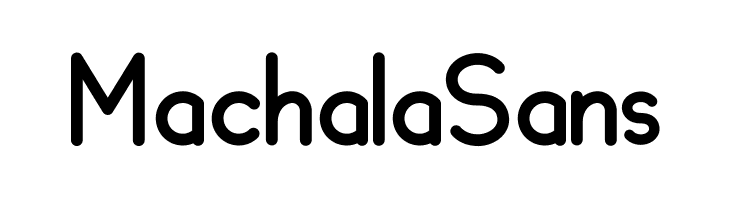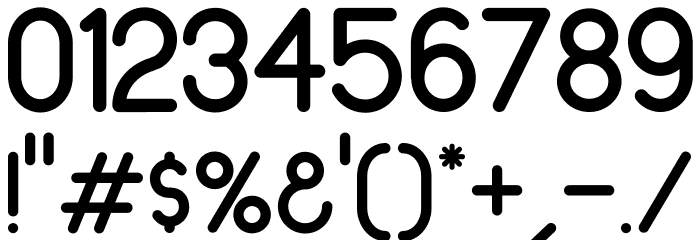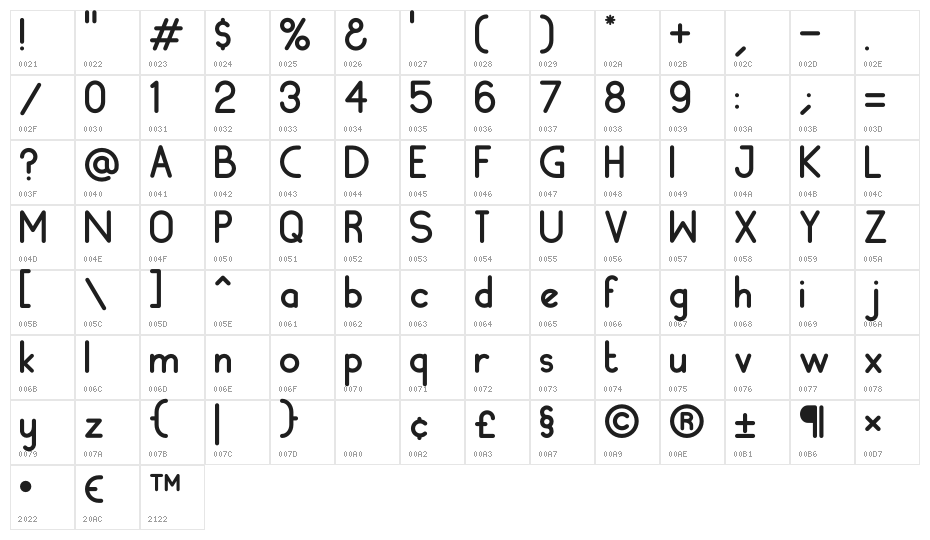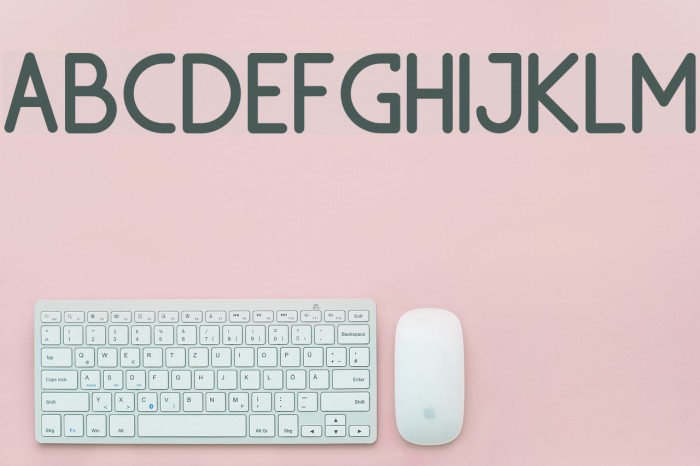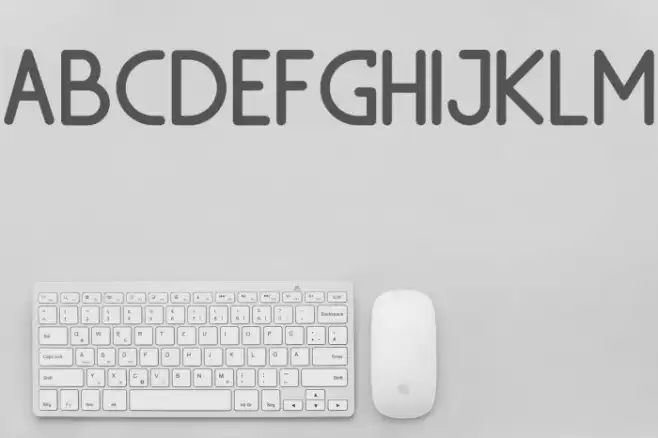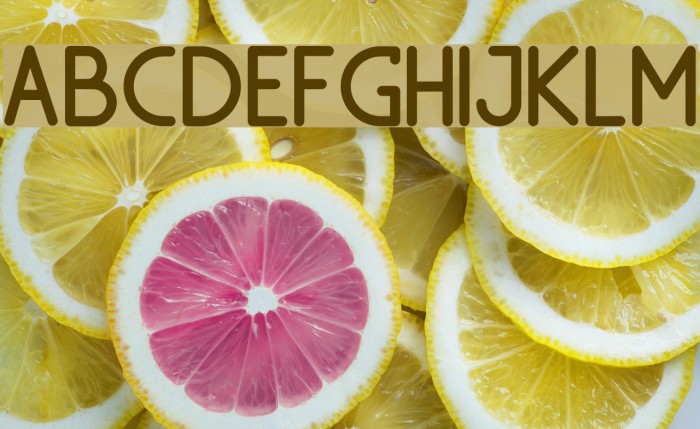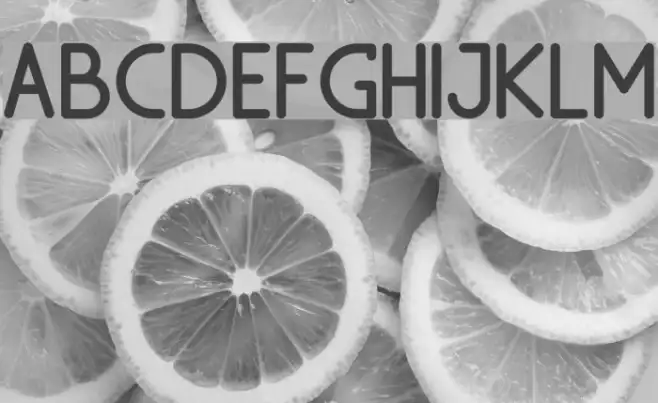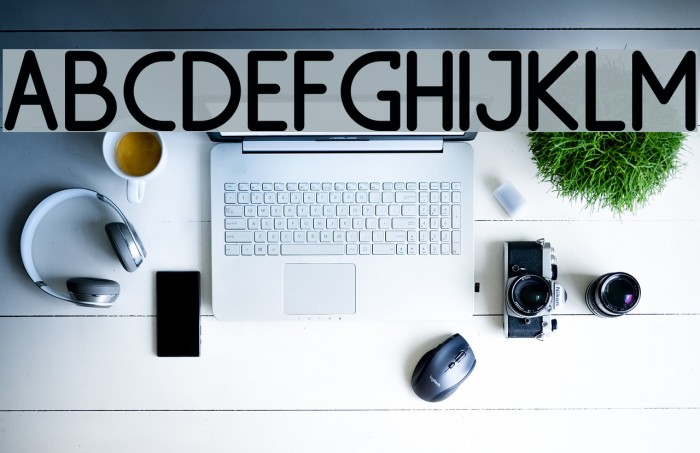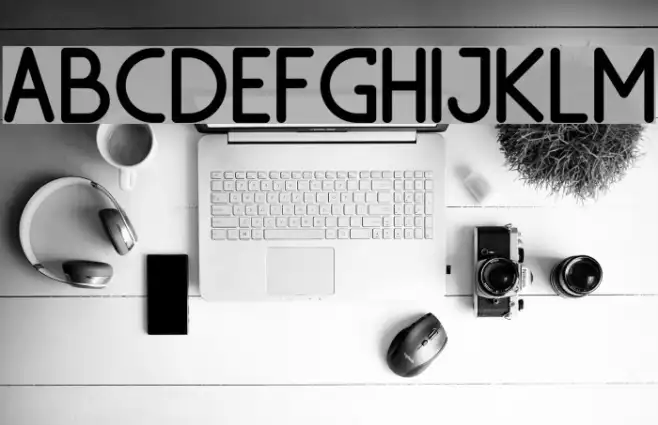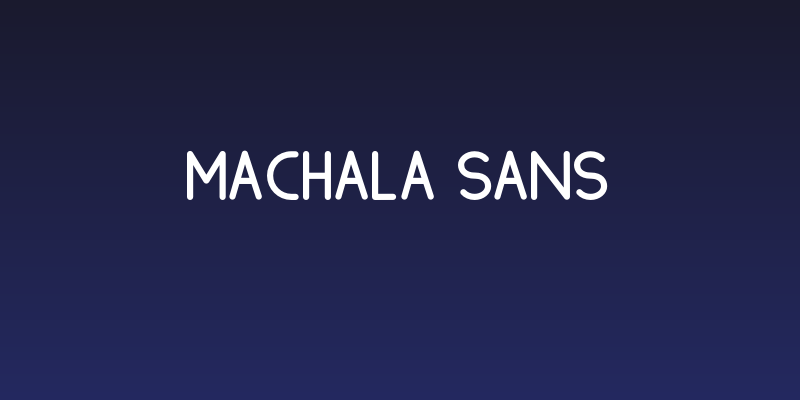
Machala Sans Font
Machala Sans Description
This font features a clean and modern sans-serif style with rounded edges, giving it a friendly and approachable appearance. The characters are evenly spaced, providing a balanced and harmonious look. The uppercase letters are bold and prominent, while the lowercase letters maintain a consistent weight, ensuring readability. The numerals are clear and distinct, making them suitable for various applications. Special characters are well-defined, enhancing the font's versatility. Overall, this font combines simplicity with a touch of elegance, making it suitable for a wide range of design projects.
| Proposed Projects | Ideal for branding, advertising, web design, and user interfaces due to its clarity and modern appeal. |